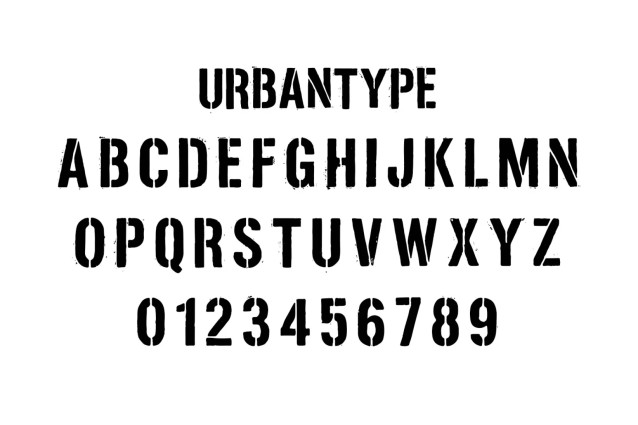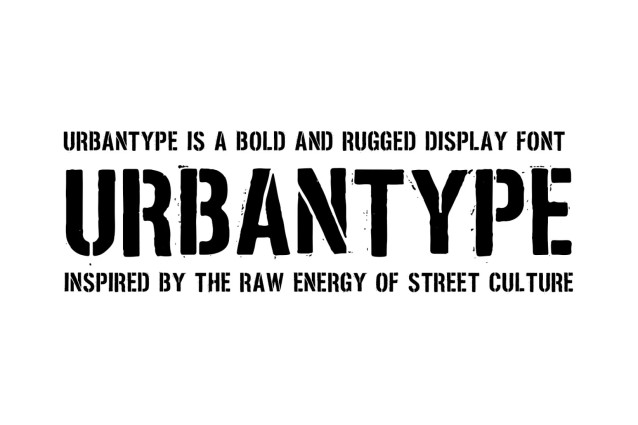
Urbantype Display Font
Urbantype Display Font is a unique display font with a military style. This font was created for a series of veterans-related posters but you can also use it in any other project you can think of.